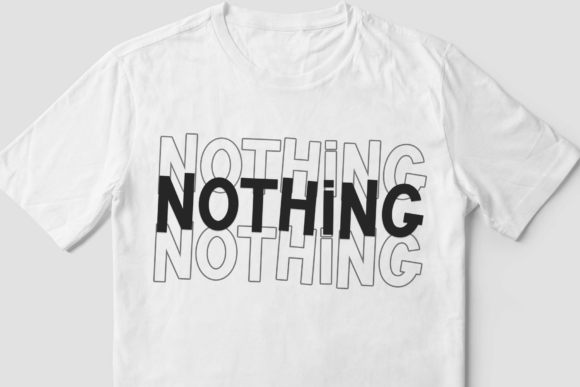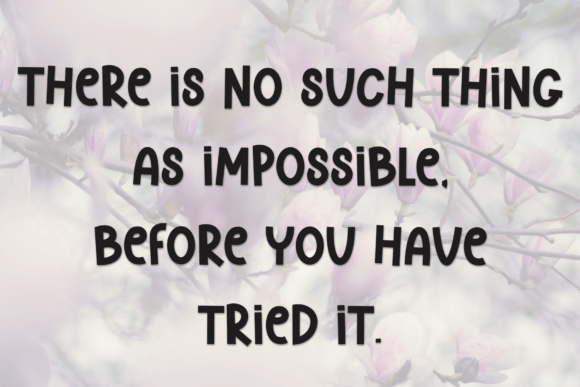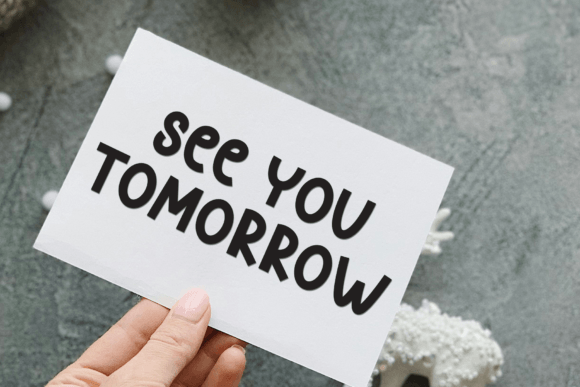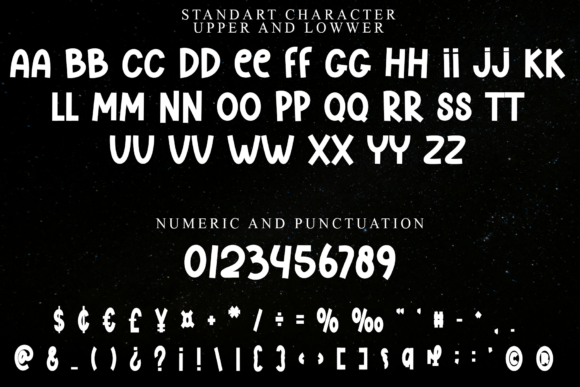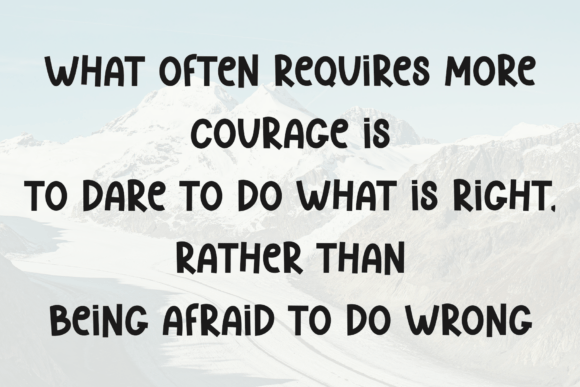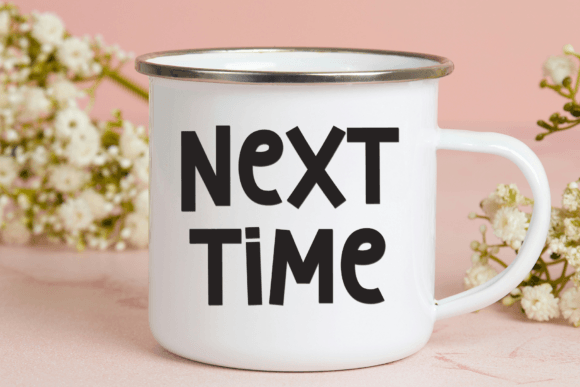
Introduction to Sample Size Font
As a designer, there’s nothing quite like the thrill of creating a project that captures the essence of the holiday season. You’ve spent hours perfecting every detail, from the color palette to the typography, and just as you’re about to finalize the design, you remember the one thing that can make it truly special: a high-quality font that embodies the magic of the season. Enter the Sample Size Font, a festive and merry typeface that’s sure to add a touch of whimsy to your creative project.
With its decorative elements and playful flair, the Sample Size Font is the perfect design resource for any holiday-themed project. Whether you’re creating a greeting card, gift tag, or festive social media post, this font is sure to bring a cheerful and nostalgic ambiance to your words. And with its transparent background, you can easily layer it over your design without any hassle.
In this article, we’ll take a closer look at the Sample Size Font and explore why it’s a valuable addition to any designer’s toolkit.
Key Features of Sample Size Font
- High-quality design for creative projects: Sample Size Font is designed to provide a unique and eye-catching look for your designs.
- Transparent background: The font has a transparent background, allowing for easy use on images or designs with complex backgrounds.
- Unique characteristics: Sample Size Font features a unique, hand-drawn design that adds a touch of personality to any creative project.
- Design resource: This font is a valuable addition to any designer’s toolkit, providing a versatile and high-quality design resource for a wide range of projects.
Honest Review: Sample Size Font
I recently came across the Sample Size Font, and I must say it’s been a game-changer for my creative projects. This font has quickly become my go-to choice for designs that require a unique and stylish touch.
Here are some of the things that I think work really well:
- High quality design: The Sample Size Font is incredibly well-designed, with crisp lines and a modern aesthetic that elevates any project it’s used in.
- Transparent background: This font is perfect for designs that require a transparent background, as it allows for seamless integration with other elements.
That being said, there are a few limitations to keep in mind:
- ⚠️ Limited character set: The Sample Size Font has a relatively limited character set, which can make it difficult to use for longer blocks of text.
Overall, I’m really impressed with the Sample Size Font and would highly recommend it to anyone looking for a high-quality design resource for their creative projects.
How to Use Sample Size Font
Introduction to Sample Size Font
Sample Size Font is a free design resource ideal for creative projects that require high-quality text overlays. Its transparent background allows for seamless integration into various design platforms.
Tips for Getting the Most Out of Sample Size Font
Experiment with different font sizes and colors to create visually appealing text overlays. Use Sample Size Font in combination with other design elements to add depth and interest to your projects.
Sample Size Font is perfect for creating social media graphics, presentation slides, and marketing materials. Its versatility makes it an ideal choice for a wide range of creative projects.
Does Sample Size Font have a transparent background?
Yes, Sample Size Font has a transparent background, making it perfect for design projects that require a clean and modern look. The transparent background allows you to easily combine the font with other design elements, such as images or shapes, without any visual clutter.